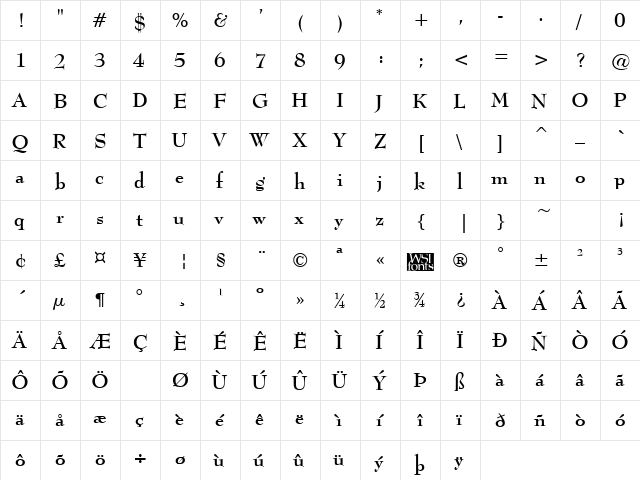
Bernadette Bold
Design Context for Bernadette Typeface
Bernadette takes a measured approach to typography — its balanced proportions and neutral character make it a reliable workhorse for both digital and print work. Its bold stroke weight gives it real presence on the page.